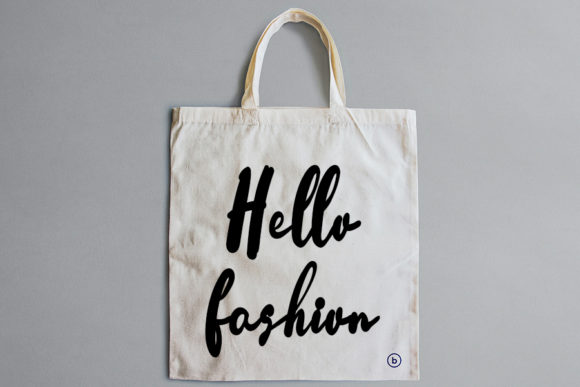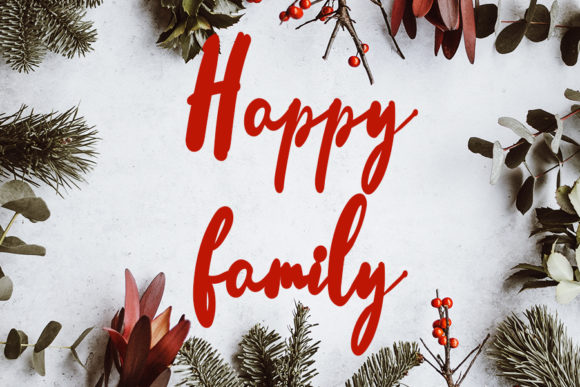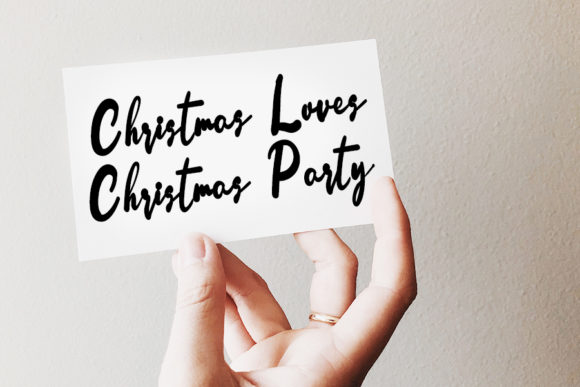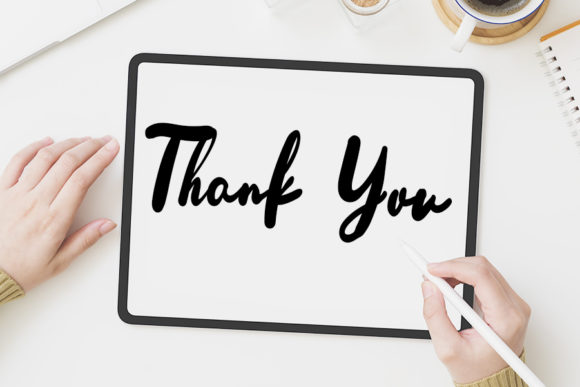
Introduction to Father Santa Font
Father Santa is a flowing and festive handwritten font.
Designed to become a top choice, this font has the potential to bring each of your creative ideas to the highest level .
Key Features of Father Santa Font
Why Choose Father Santa Font?
Father Santa Font offers exceptional quality and versatility, making it a valuable addition to your design toolkit. Whether you’re creating for personal projects or commercial use, Father Santa Font delivers professional results.